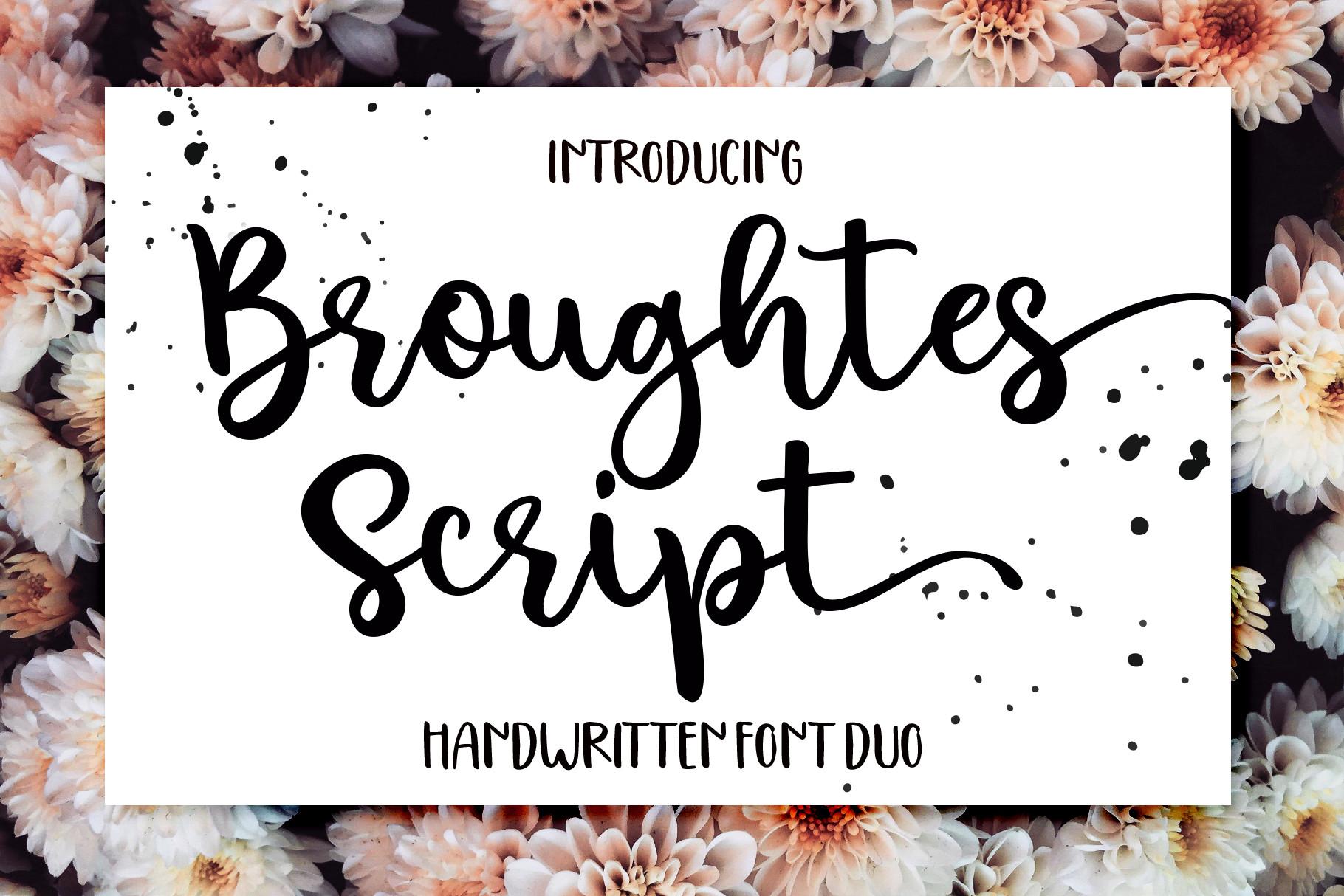
Broughtes Font Description
Broughtes is a ravishing script font. This font is neatly crafted and highly detailed. Whatever the topic, this font will be a wonderful asset to your font library, as it has the potential to enhance any creation. This font is PUA encoded which means you can access all glyphs and swashes with ease!